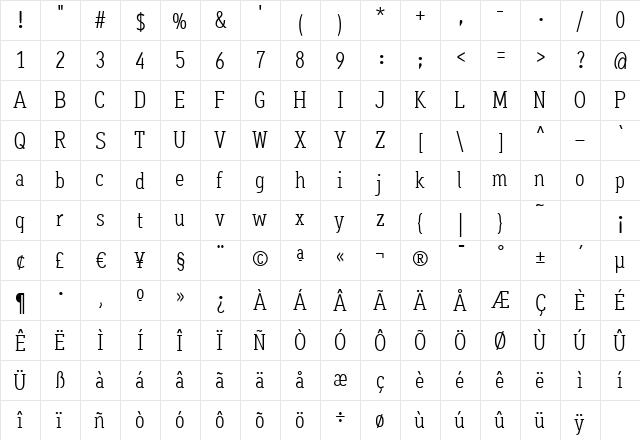
Aaux OfficeRegular Regular
Design Context for Aaux OfficeRegular Typeface
Aaux OfficeRegular is a composed and adaptable typeface that performs quietly and consistently across a wide range of design contexts.
Pro Tip: Pair Aaux OfficeRegular with a font of contrasting weight or personality to build a more expressive typographic hierarchy.